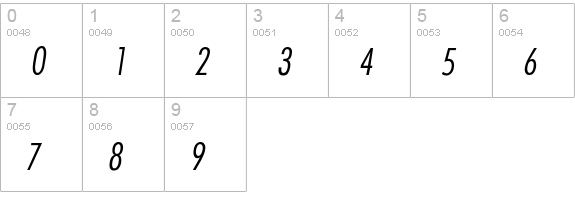
Kudos Light Condensed SSi Normal is a refined, elegant, condensed-width variant in the Kudos typeface family \xE2\x80\x94 well suited to elegant body text, refined sub-headings, and luxury branding.
Kudos Light Condensed SSi Normal font is a sleek and modern typeface that exudes sophistication and elegance. With its clean lines and slender appearance, this font is perfect for adding a touch of refinement to any project. The light condensed style adds a subtle touch of uniqueness, making it stand out from the crowd. Best of all, Kudos Light Condensed SSi Normal font is available for free download at FontsMarket.com. This means you can easily access this stylish font without any cost, making it a valuable addition to your design toolkit. Whether you're working on a professional project or a personal creative endeavor, this font is sure to elevate your work with its timeless charm and versatility. Don't miss out on this fantastic opportunity to enhance your designs with the Kudos Light Condensed SSi Normal font today!